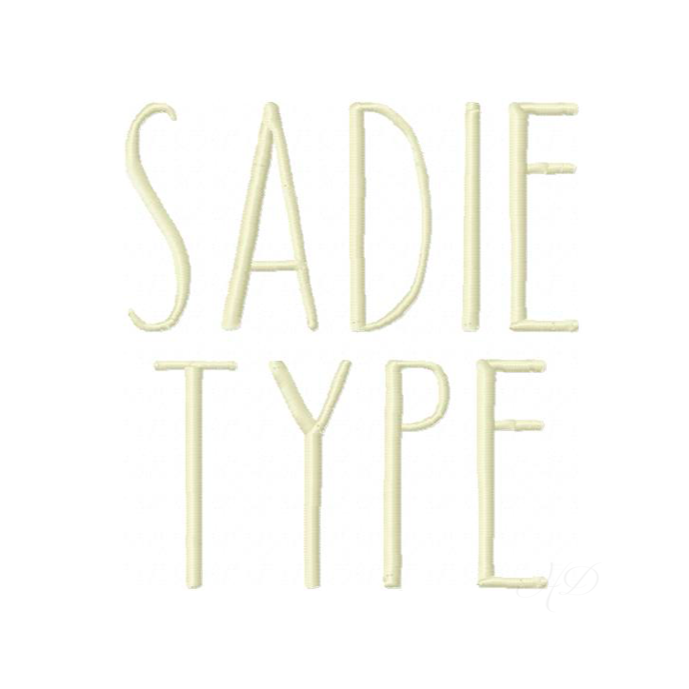
Sadie Satin Embroidery Font - Modern Crafting Design
The Sadie Satin Embroidery Font Package is perfect for crafters and DIY enthusiasts. This modern, sans serif satin stitch font comes in six sizes—.5", 1", 1.5", 2", 2.5", and 3"—all designed to fit within a 4x4 hoop.